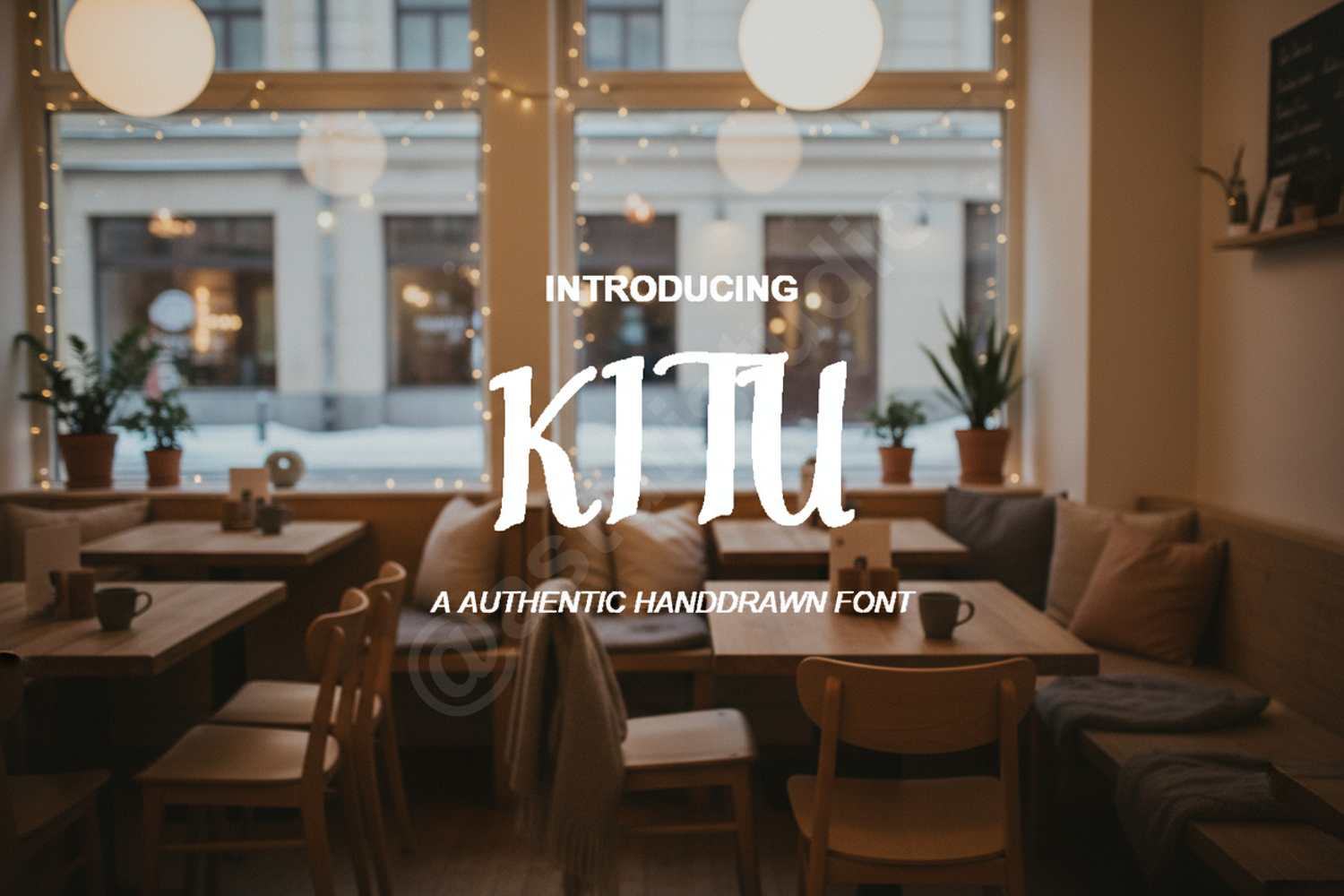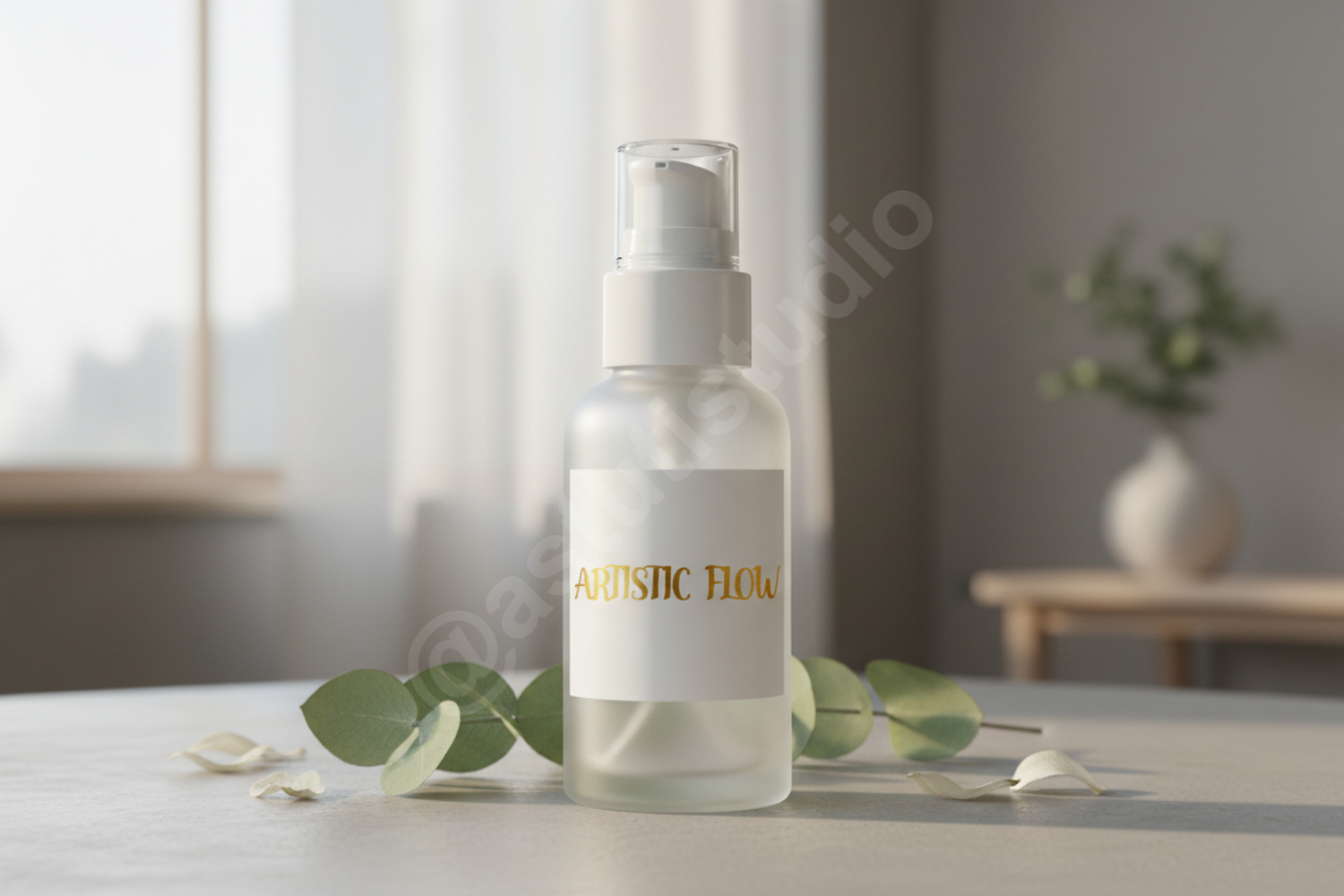
Kitu - Modern Minimalist Sans Serif Typeface
Kitu
Elevate your design projects with Kitu, a premium modern typeface that balances minimalist aesthetics with high-end functionality. Kitu is meticulously crafted to ensure maximum readability while maintaining a sophisticated, contemporary edge. Whether you are building a brand from the ground up or looking for the perfect header for your next editorial project, Kitu provides the versatility and professional polish you need.
- Comprehensive character set including uppercase and lowercase
- Luxury Branding and Visual Identity
- Modern Logo Design
- Editorial Layouts and Magazine Spreads
- Elegant Wedding Stationery and Invitations
- High-End Product Packaging
- Social Media Content and Digital Marketing
- Sleek Website Headers and User Interfaces